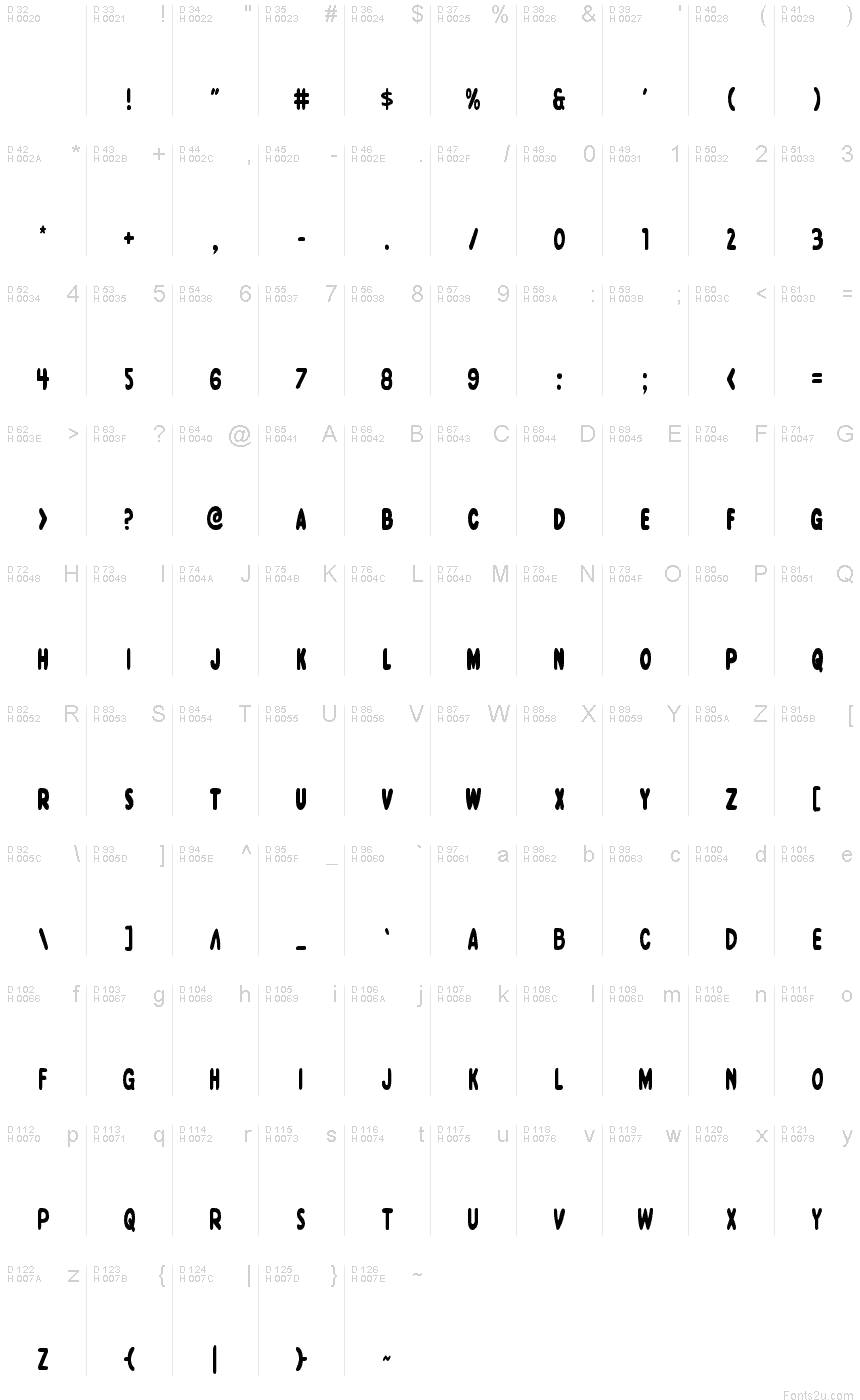
Excelsior Comics Condensed, created by Iconian Fonts in 2013, is a free condensed comic display font with towering, soft-edged letters and a dense, tightly packed, dark silhouette. Uneven tops and pinched inner spaces keep the lettering lively.
Comic-book covers are its clearest home, especially for loud title lettering that needs the immediacy of hand-drawn sound-effect graphics and superhero mastheads. The same tall, rubbery shapes suit arcade posters, youth merchandise, and snack packaging, where the letters can become part of the colorful illustrated action rather than a neutral caption on the page.